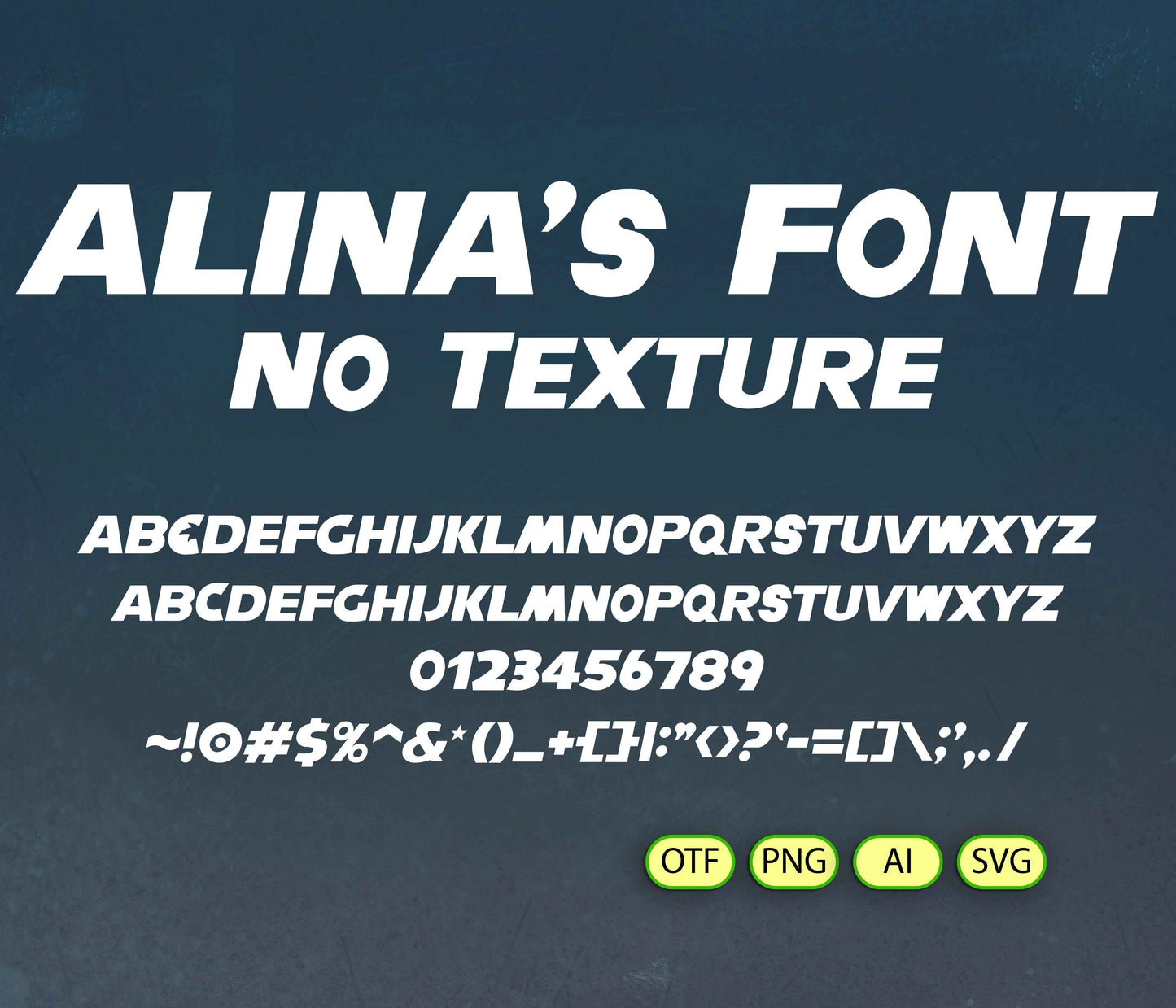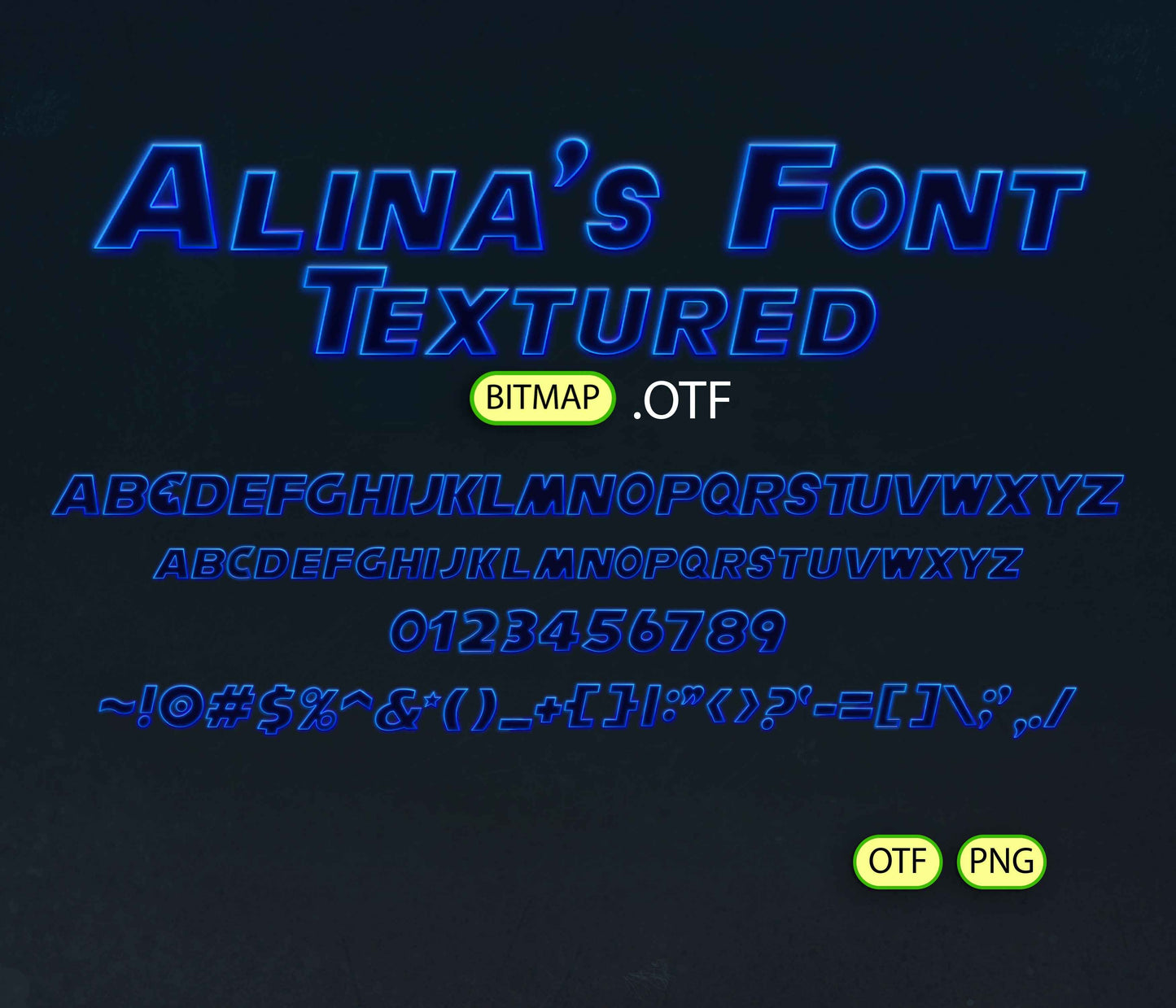
Speedy Hedgehog Font Textured
Speedy Hedgehog Font: The High-Speed World of Animated Adventure
Zoom into the exhilarating universe of a beloved speedy character with our custom-designed font, inspired by the sequel to an iconic video game and movie franchise. This font captures the essence of a world where speed, adventure, and boldness reign supreme. Each character in the font is crafted to echo the dynamic, energetic, and vibrant spirit of a fast-paced hero and his adventures, making it perfect for projects that aim to bring excitement and fast-paced action to life.
What Font is Speedy Hedgehog Font?
Envision a typeface that encapsulates the agility and flair of a famous blue character. Our font is designed to mirror the sharp, edgy, and playful style of the franchise, with a particular focus on the visual themes of the second installment. It includes an extensive character set, featuring alphabets, numbers, and special symbols, providing a versatile toolkit for a wide range of design projects, from gaming content to themed merchandise.
• Textured and FREE Non-Textured Variants: Each font is available in both a dynamic, textured style and a clean, non-textured version for different design scenarios.
• Comprehensive Character Set: Offers a wide range of characters for complete design versatility.
The Speedy Hedgehog font is more than just a typeface; it's an homage to the speed, energy, and excitement of one of the most beloved characters in gaming history.